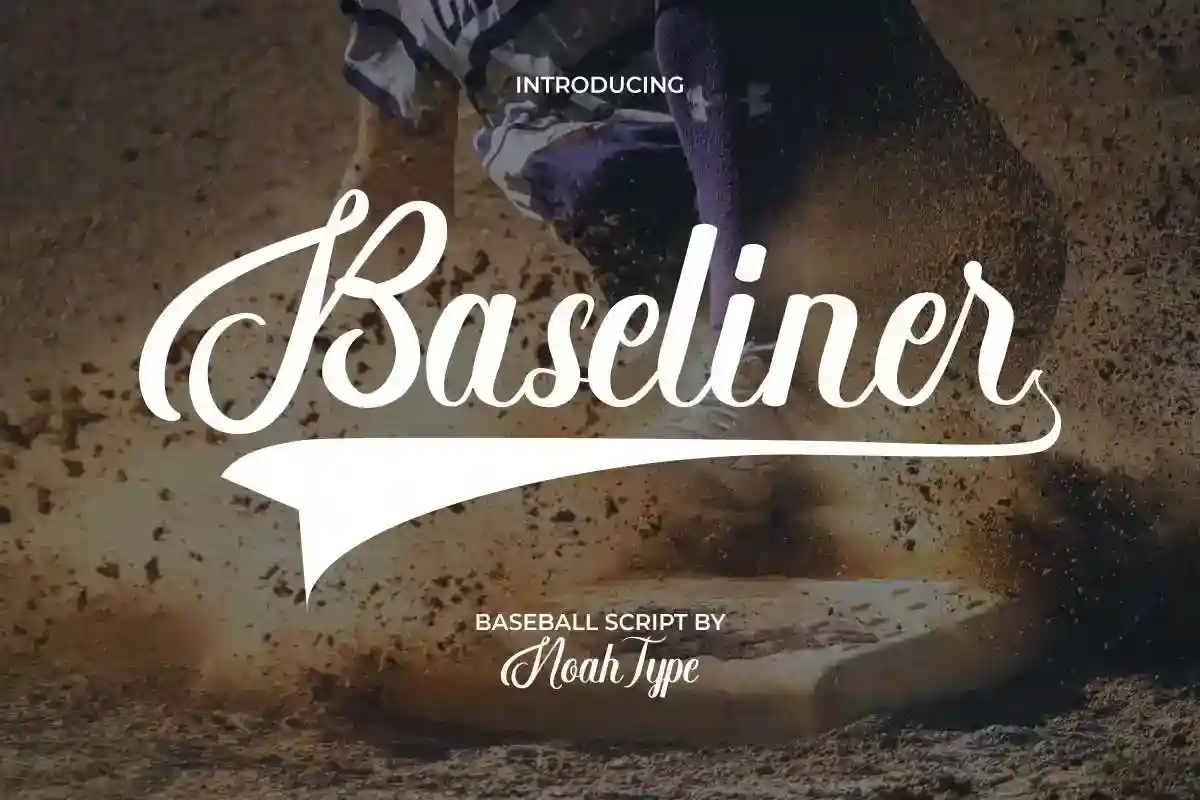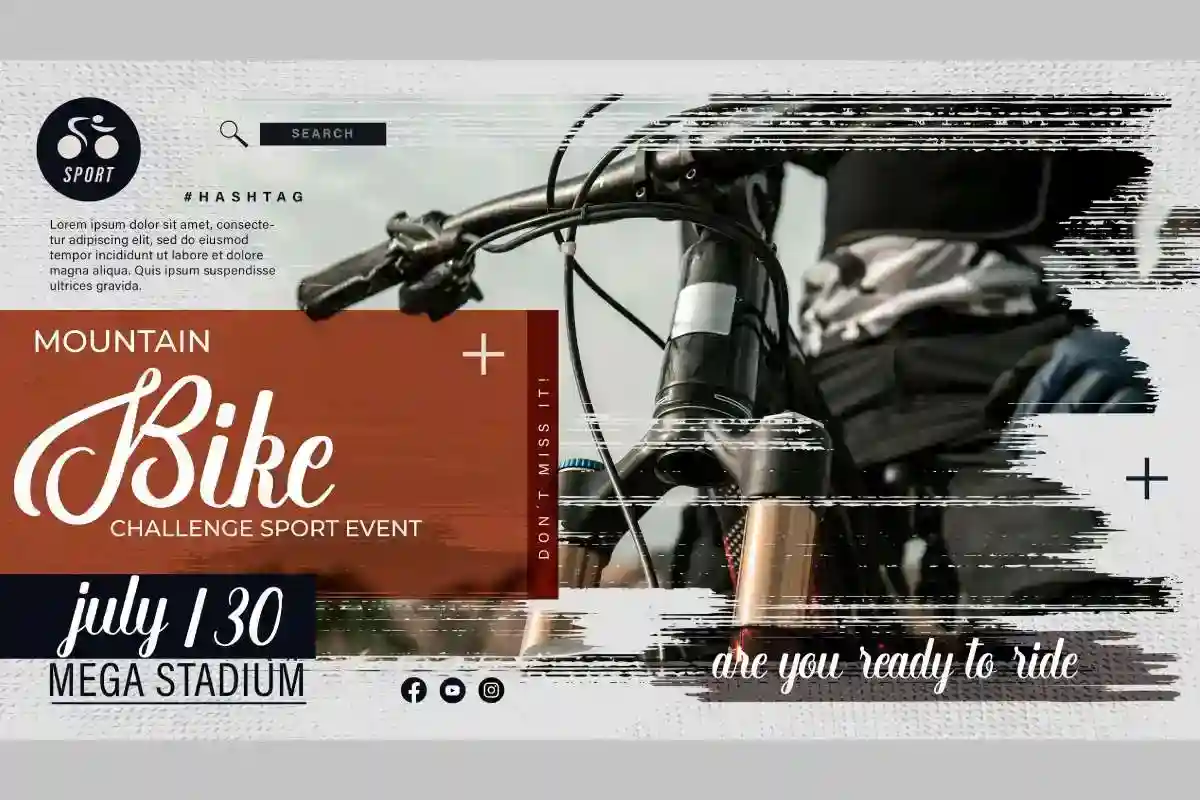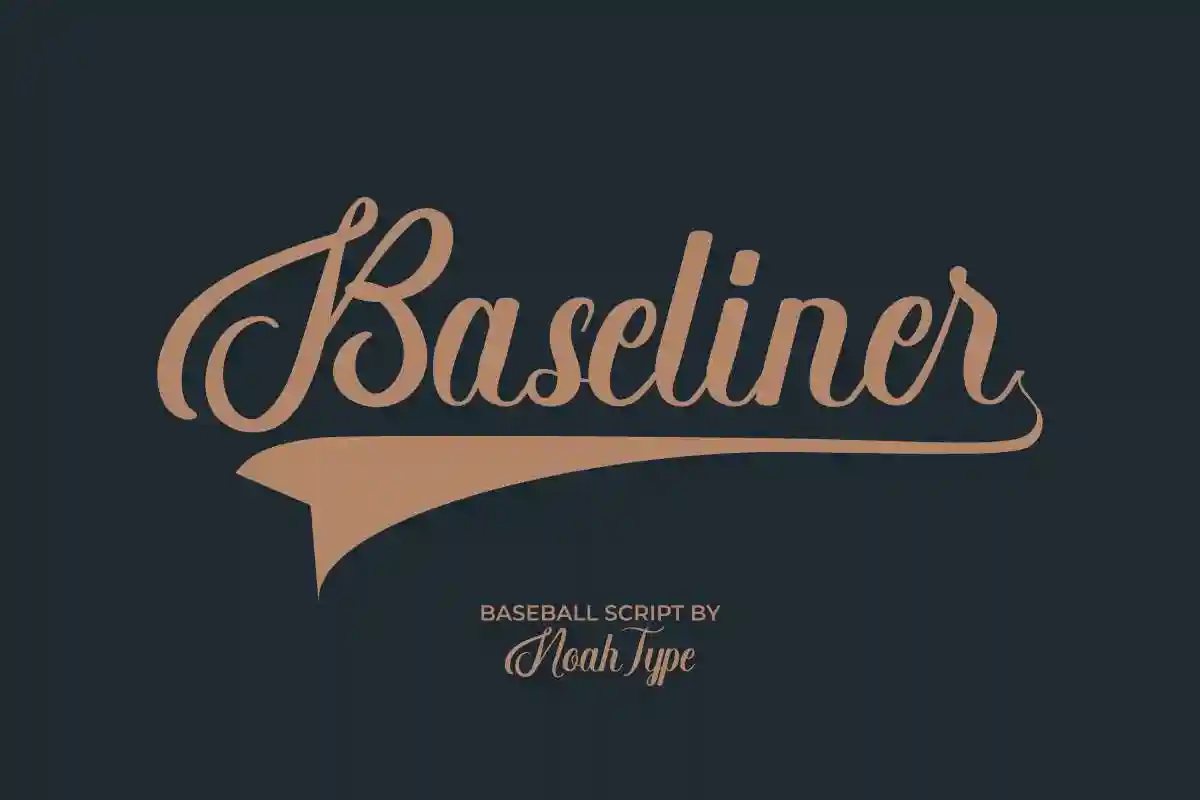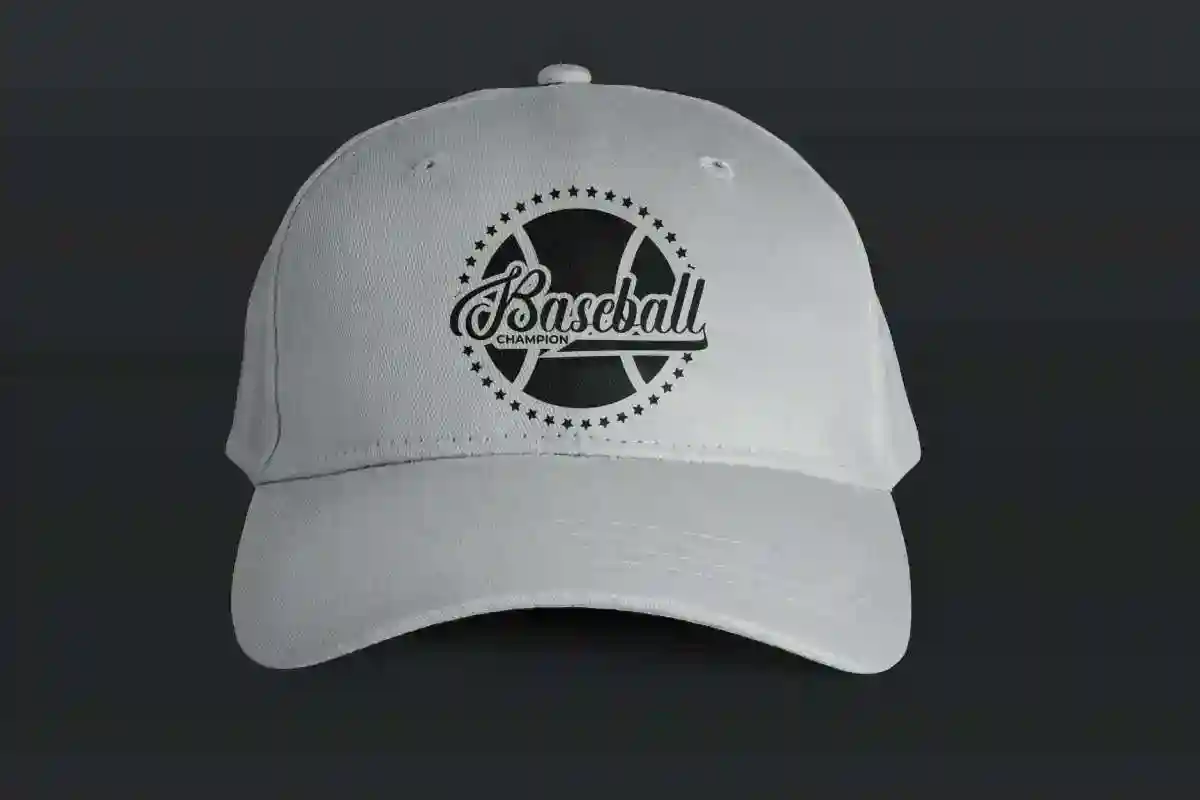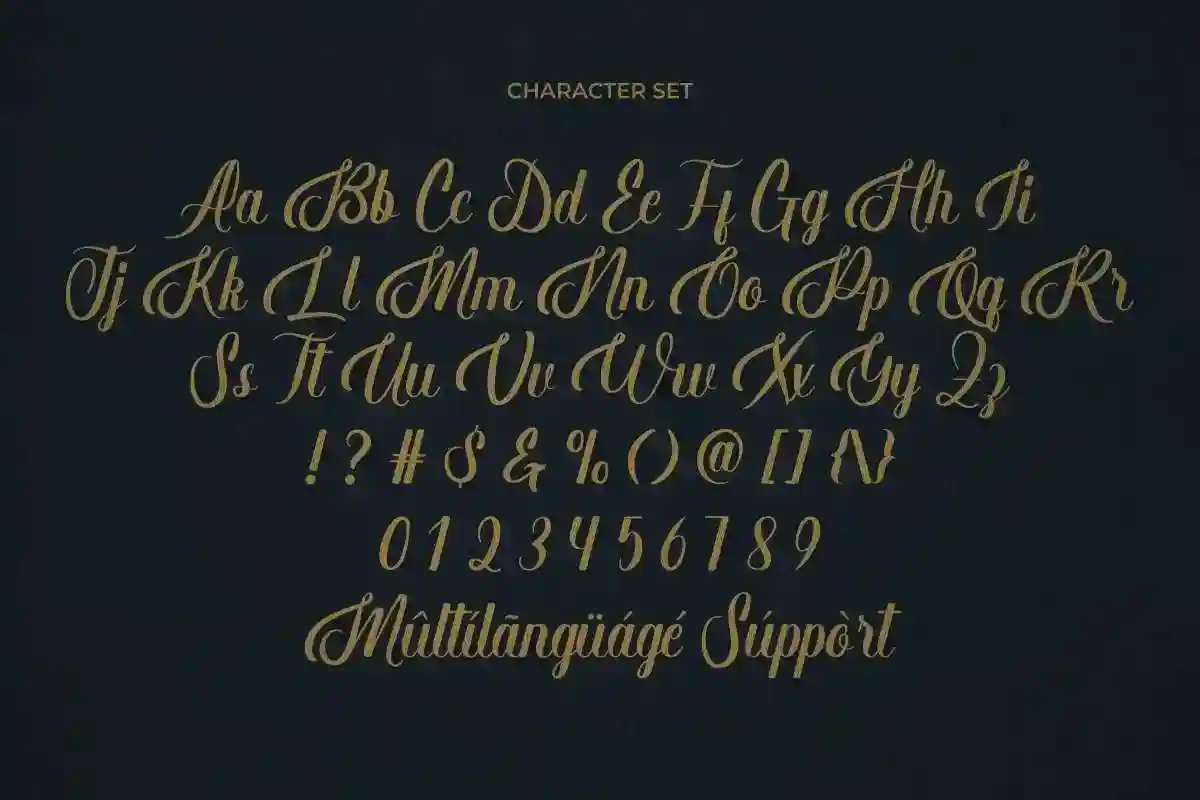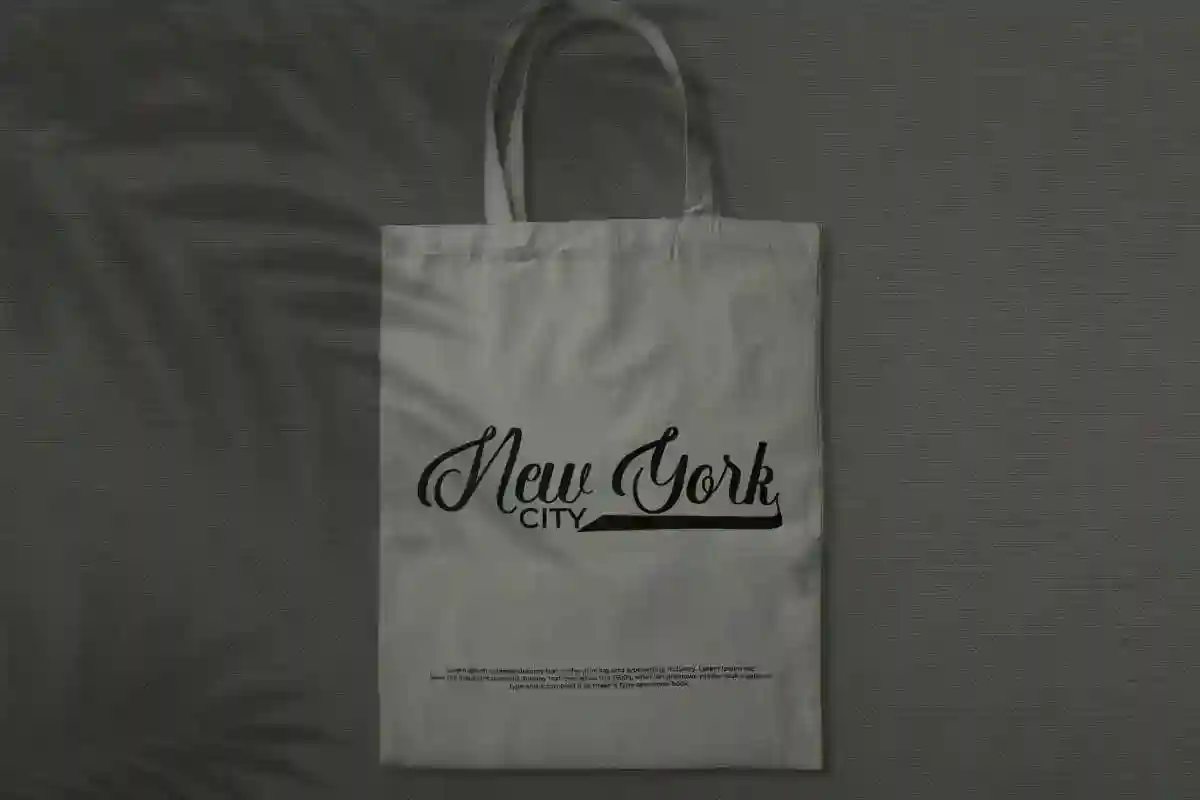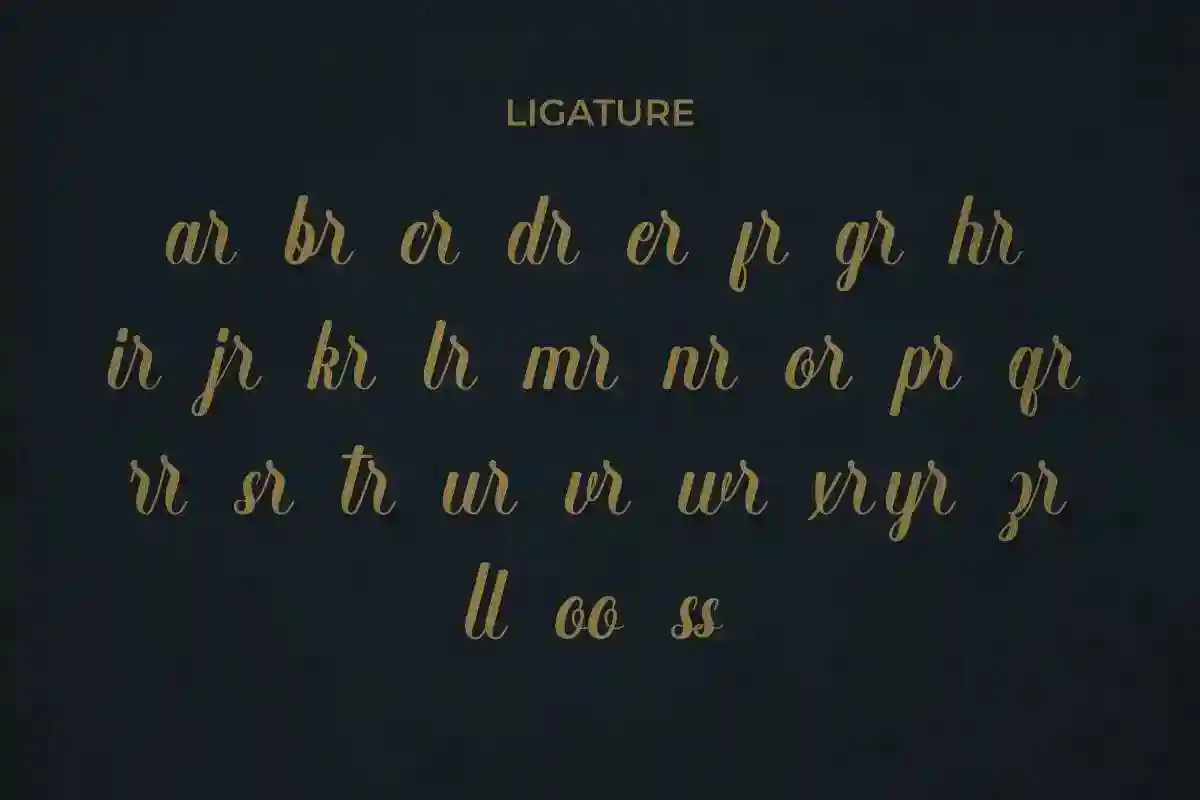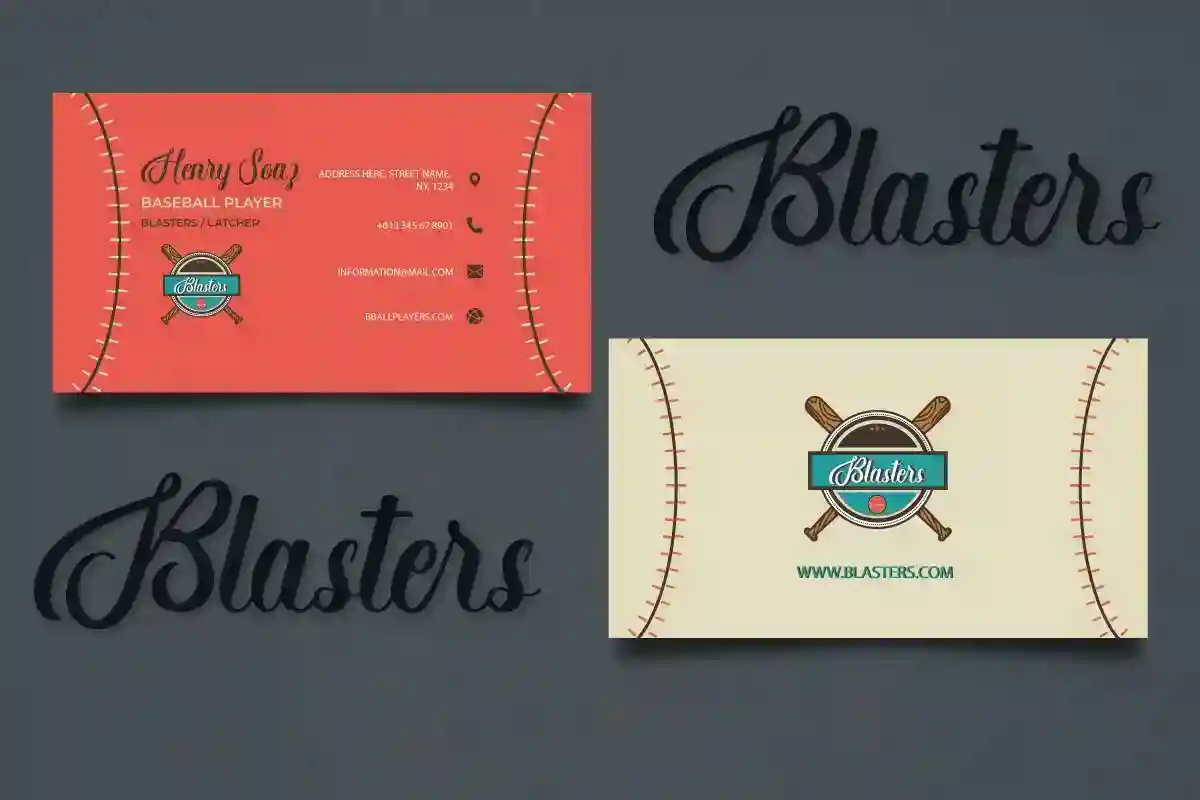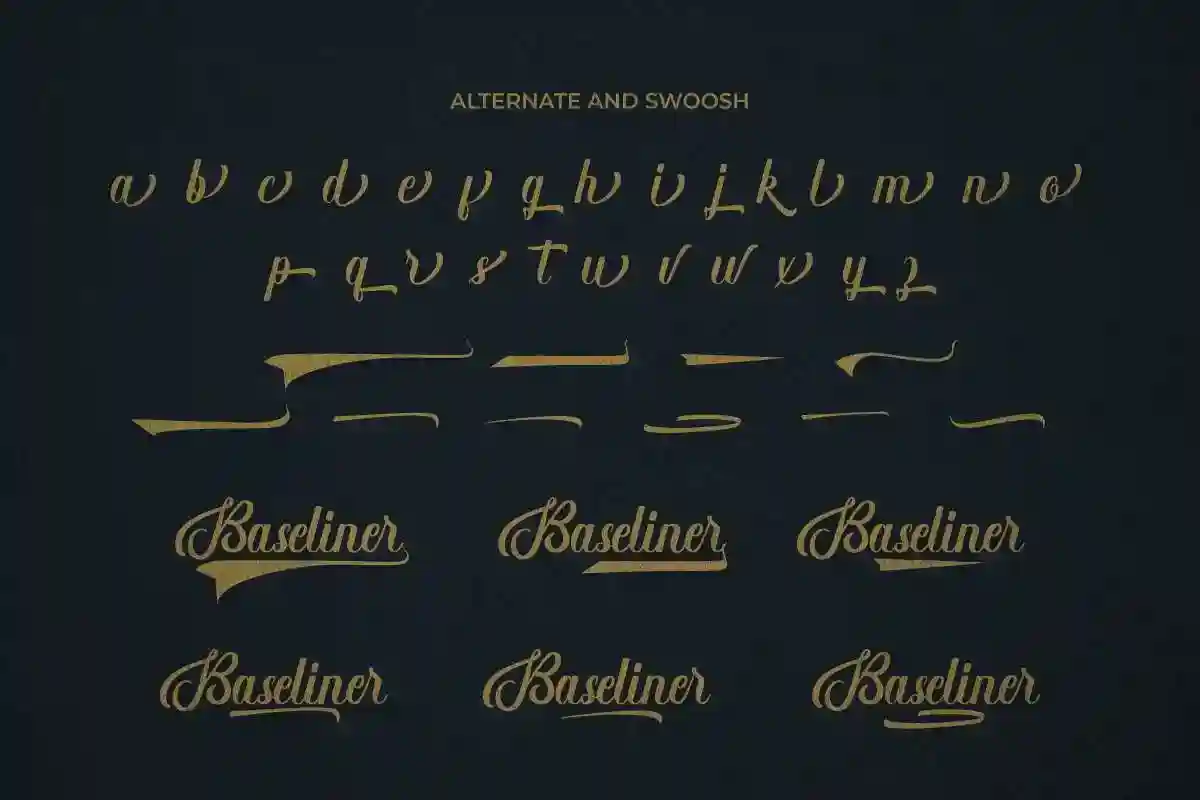
Baseliner Font is a brush script font inspired by baseball world, made by NoahType. This font will add a personal handwriting look twist to any design project. This font is crafted carefully in every its single scratch, created to look as close to a natural handwritten script so that it can create the perfect combination on each glyph.
When we make this font, we really want to create a touch that is so free-flowing that it gives a natural impression on its use later. For example, if you want letter ‘s’ that has a flow sketch with letter ‘t’, you can find it in ‘st’ ligature glyph (just type in the text form below for trying). This brush font is for anyone who needs a sporty script style for their designs.
This brush font will be awesome for fashion, games, products packaging, sports, video etc
Baseliner Font includes full set of Uppercase and Lowercase Basic Characters, Numerals and Punctuation. Also it contains ligatures and a lot of swoosh characters to perfectly make natural writing look that add more beautiful and aesthetic fonts to perfect your extraordinary project. Baseliner will be awesome for logotype, headline, products packaging, screen printing, signage, social media posts, stationery etc